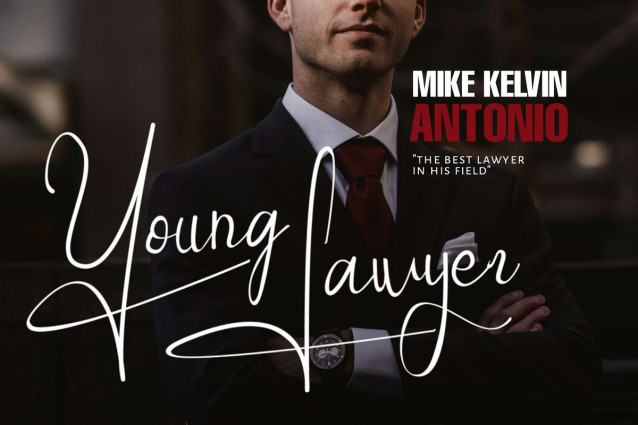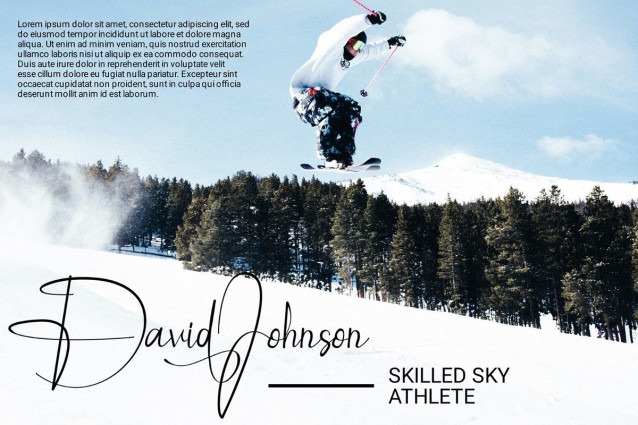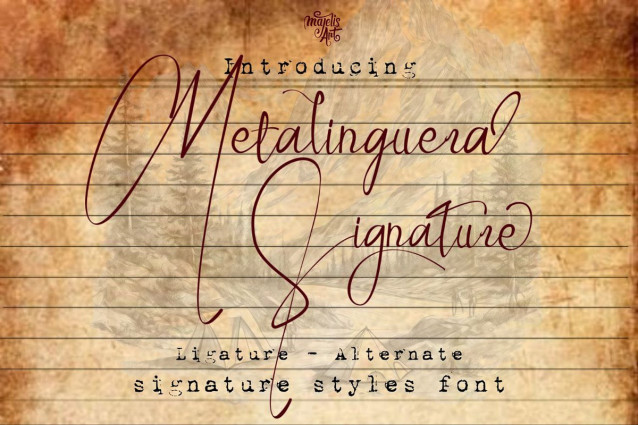
Metalinguera Signature Font
Metalinguera Signature Font – This font is a font made from a collection of signature scripts. We made it a little elegant and classy in the font field. With this, the font closely resembles a real signature or script created in the 18th century.
This font is very suitable for use on websites, films, dramas, novel and book covers, advertising posters and billboards, use on product logos, musician and band covers, and many other uses.